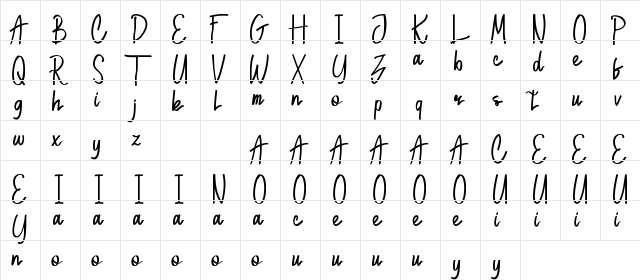
GonlotusFangwellDemo Script Regular
Design Context for GonlotusFangwellDemo Script Typeface
GonlotusFangwellDemo Script flows with the natural rhythm of handwritten lettering, making it ideal for designs that call for warmth and personal expression.
Font Pairing: Combine GonlotusFangwellDemo Script with a simple geometric sans for maximum contrast — the tension between flowing curves and clean structure is a classic typographic pairing.
Pro Tip: Use GonlotusFangwellDemo Script for short runs of text — names, titles, or taglines. Extended body copy in script faces tires the eye quickly.